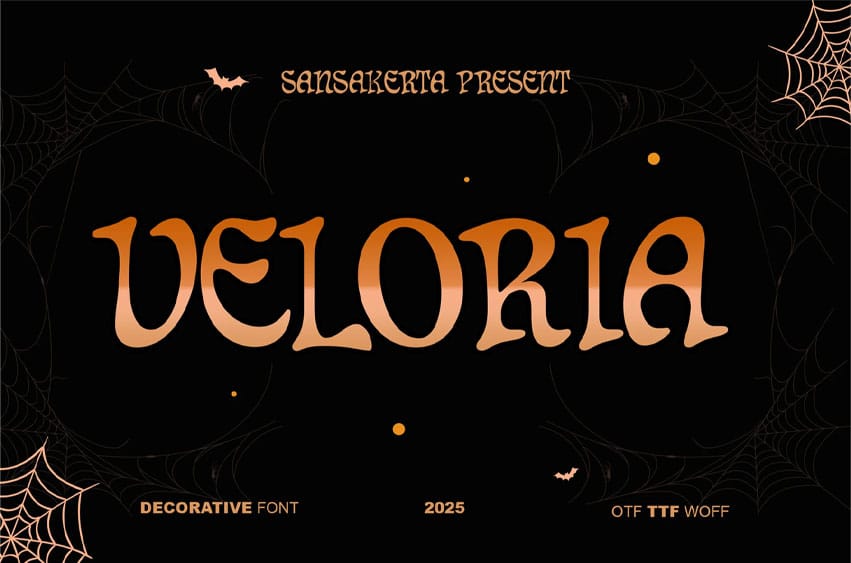
Veloria Font
Veloria Font is a Halloween font born from darkness—sharp, haunted, and infused with a chilling aura of mysticism. Each curve of its letters resembles ancient curses carved into stone, creeping forth from the shadows to summon unseen malevolence. Like a whisper of demons in a fog-drenched night, this font channels a gripping Gothic terror, making it perfect for horror film posters, blood-soaked titles, macabre thrillers, and witchcraft branding that thirsts for souls.
With strokes that exude the essence of death, VELORIA is not merely a font—it is a gateway to the realm of shadows, where monsters roam, forgotten curses breathe anew, and untold mysteries lie in wait to tear apart your courage. From cursed Halloween invitations to Gothic death notes, this typeface transforms into a sinister incantation that ensnares the gaze of anyone who dares to look upon it.
Feature
• Uppercase
• Lowercase
• Numeral
• Functional
• Stylistic